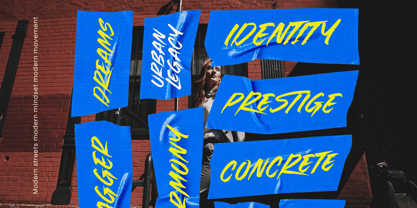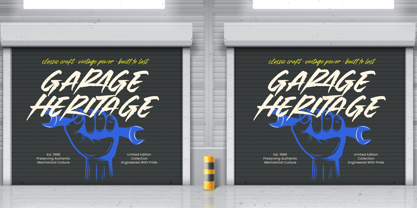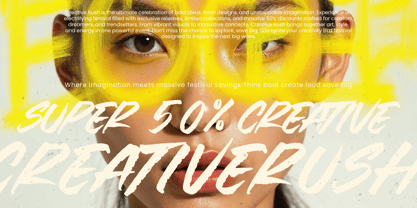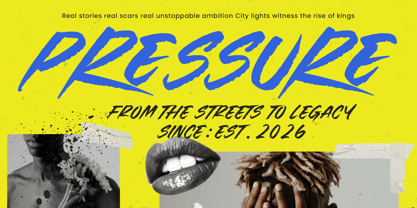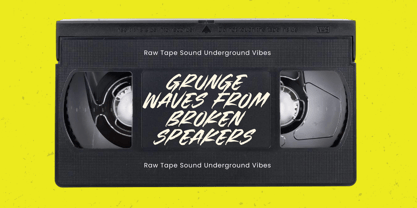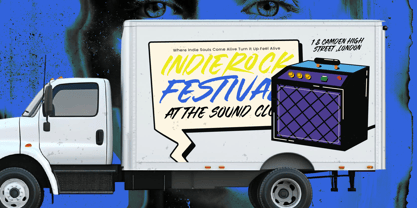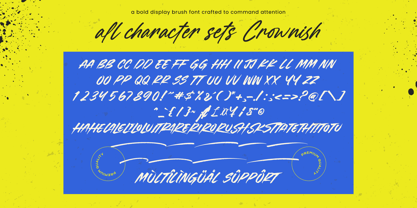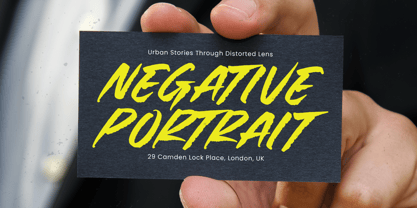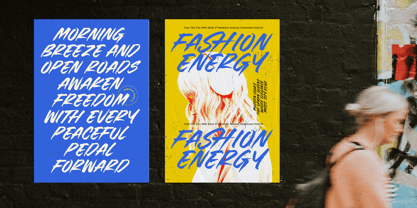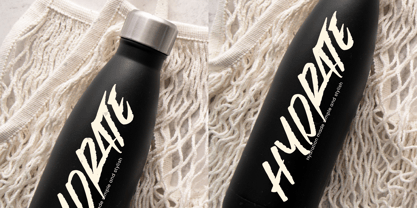
Crownish
The Crownish Font Family was designed by Heru Utama Putra and published by Letterena Studios. Crownish contains 2 styles and family package options. More about this family
Crownish is a bold display brush font crafted to command attention and amplify visual impact. Designed with strong, textured strokes and confident brush energy, this typeface delivers powerful headlines and striking branding statements. Its expressive letterforms create a raw, modern aesthetic that stands out across posters, apparel, album covers, packaging, advertising, and social media graphics. Featuring two styles, 22 ligatures, and full multilingual support, Crownish offers flexibility while maintaining its bold personality. Whether you want to make your headlines louder, your branding stronger, or your message impossible to ignore, Crownish brings fearless brush intensity to both print and digital design.